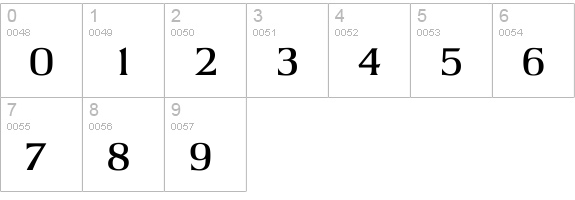
Introducing ArgusMediumTab font, a versatile and modern typeface perfect for a wide range of design projects. With its sleek lines and stylish appearance, ArgusMediumTab is sure to make a statement in any layout or composition. This font strikes the perfect balance between professionalism and creativity, making it suitable for both corporate branding and artistic endeavors. The best part? ArgusMediumTab is available for free download at FontsMarket.com. That's right, this high-quality font can be yours at no cost, allowing you to elevate your designs without breaking the bank. Don't miss out on this opportunity to enhance your projects with the sophisticated charm of ArgusMediumTab. Download it today and see the difference it can make in your work!